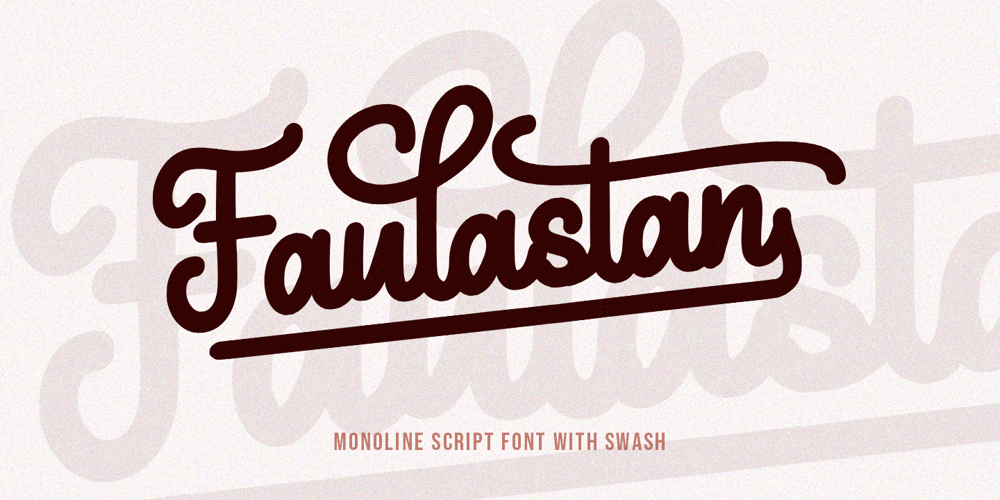
Faulastan
Faulastan Font Family was designed by Andri Kurniawan and published by Struggle Studio. Faulastan contains 4 styles and family package options. Faulastan is a monoline script font elegant that combines elegance with a contemporary flair. With its smooth, flowing lines and clean, consistent stroke width, this font evokes a sense of simplicity and sophistication. Its cursive-style letters feature gentle curves and graceful connections, making it ideal for creating stylish logos, branding, invitations, and other creative projects. Faulastan’s seamless flow and balanced design brings a modern touch to traditional script fonts, offering a timeless yet trendy look that works well in both digital and print formats.